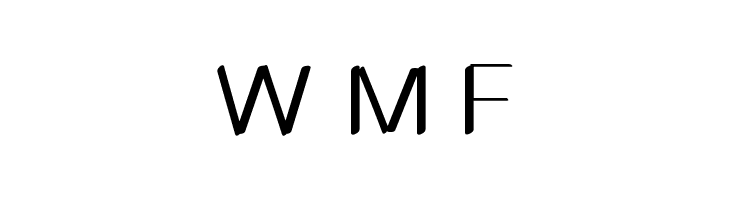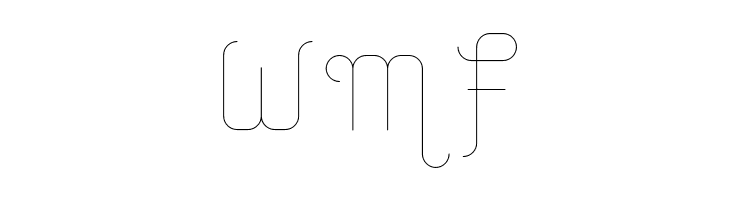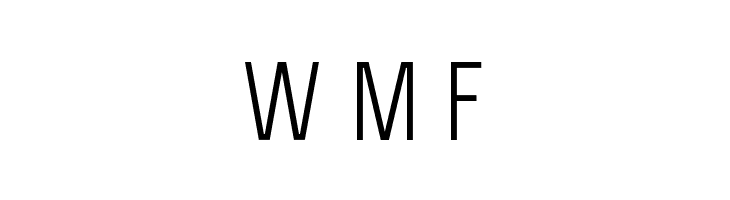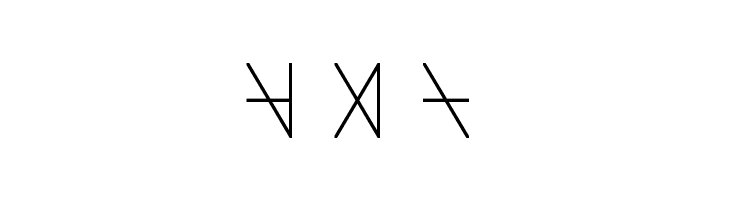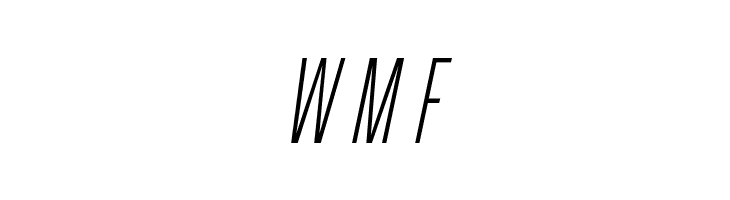
A sleek, modern sans-serif font with bold weight and clean lines.
A modern, geometric sans-serif font with consistent line weights and a minimalist design.
A modern, ultra-lightweight font with a minimalistic and geometric design.
A modern, decorative font with semi-bold weight and looped terminals.
A clean, modern sans-serif font with a geometric structure and consistent stroke weight.
A modern, geometric font with tall, narrow characters and consistent stroke weight.
A geometric, rune-inspired decorative font with uniform line weight.
A sleek, modern italic font with a condensed width and uniform stroke weight.
A modern, ultra-lightweight font with sleek, geometric lines and a minimalistic style.
A clean, geometric font with a modern and balanced design.